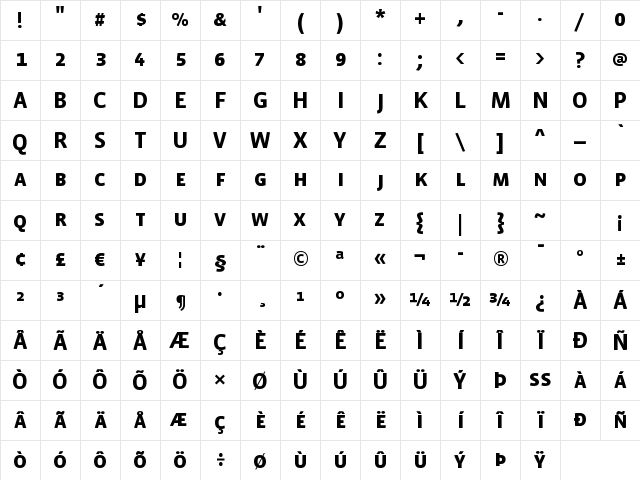
VistaSansSCBold is a composed and adaptable typeface that performs quietly and consistently across a wide range of design contexts. Its bold stroke weight gives it real presence on the page.